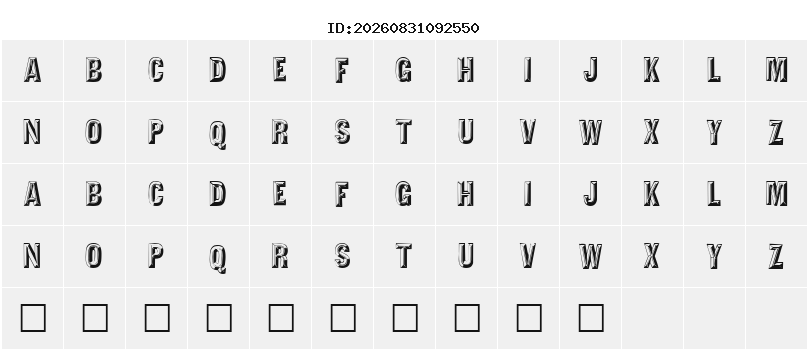
Tejaratchi Preview
• Font Name: Tejaratchi
• Full Font Name: Tejaratchi Regular
• Character Count: 54
About Tejaratchi.ttf
Tejaratchi.ttf is a modern, elegant sans-serif font designed for ultimate readability and visual harmony. Perfect for branding, headlines, web design, and print materials.